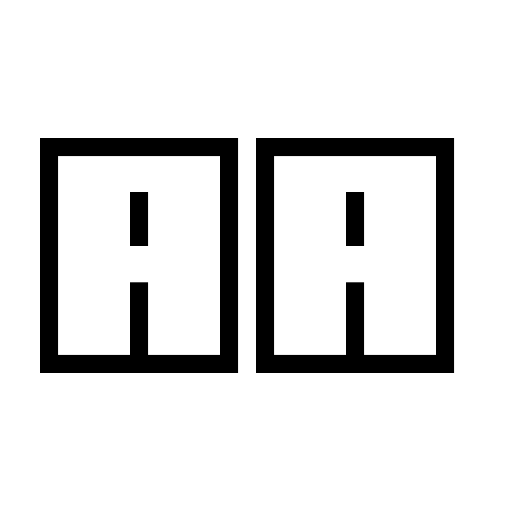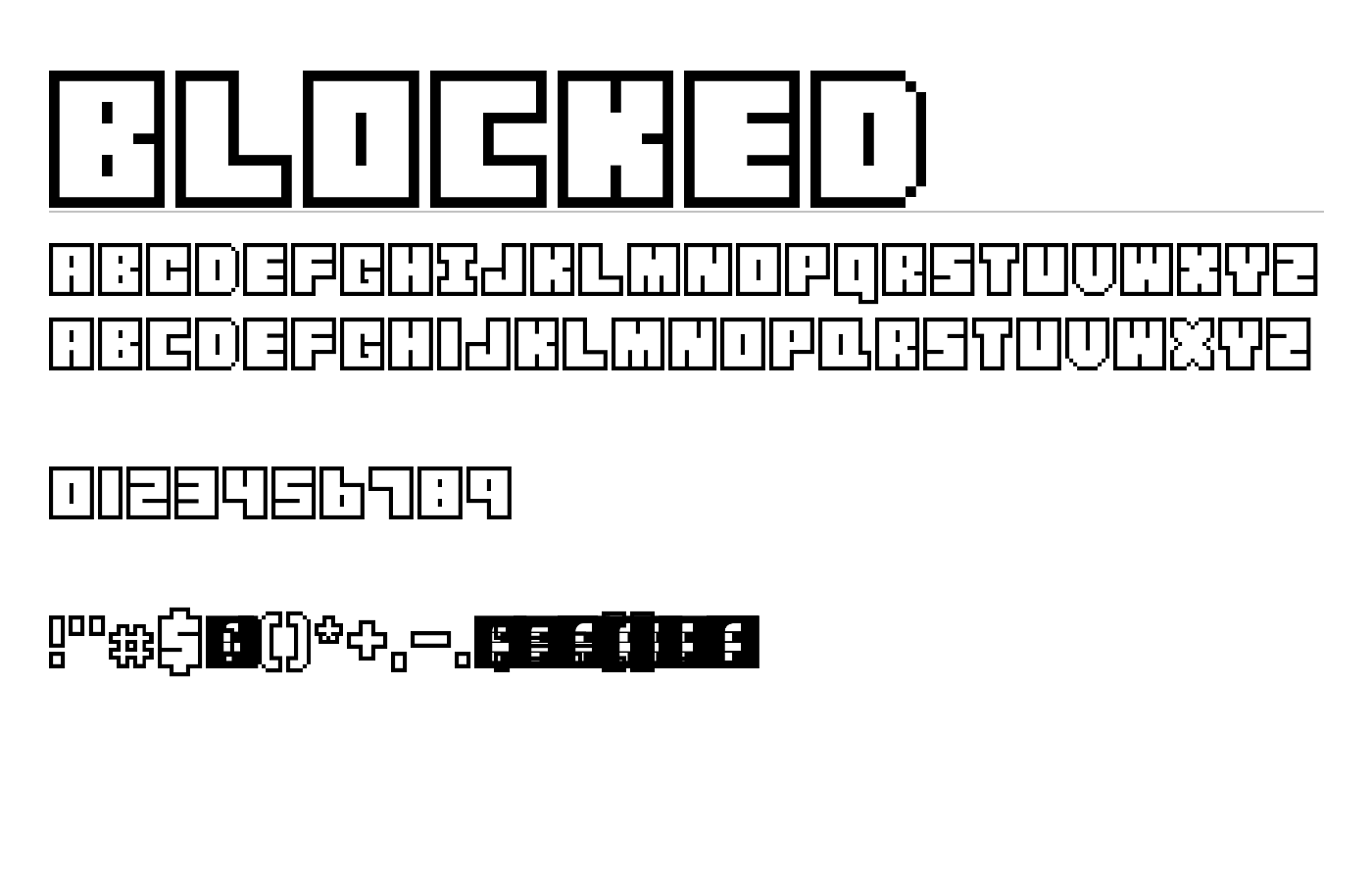
Blocked Font is a bold, geometric, and pixel-inspired sans serif typeface with a strong blocky structure and sharp edges. Its consistent weight and squared forms give it a modern, digital, and tech-savvy feel, making it perfect for logos, gaming interfaces, and retro-futuristic designs that demand high impact and readability. This font's rigid, grid-like appearance is ideal for creating a playful yet robust visual identity in digital or print media.
Blocked Font
About Blocked Font
| Font family | Blocked Font |
| Designer | Sabata |